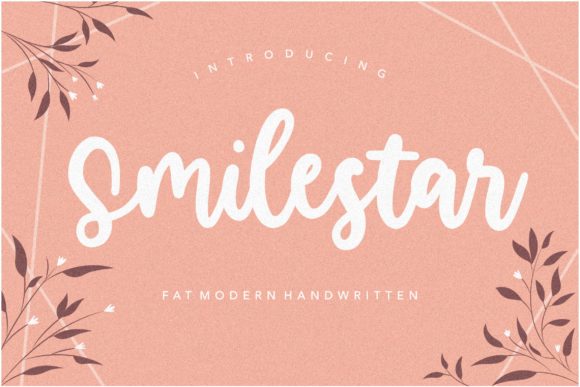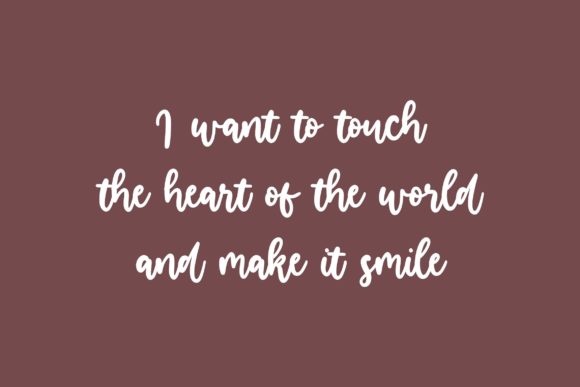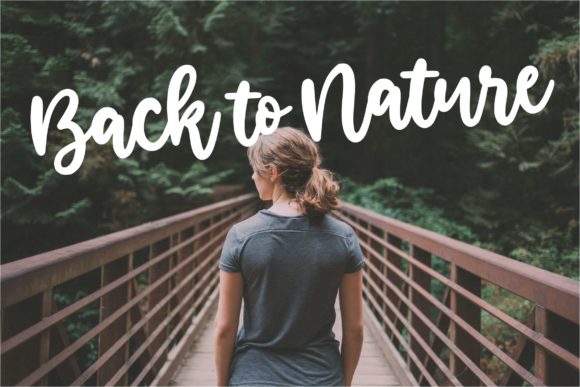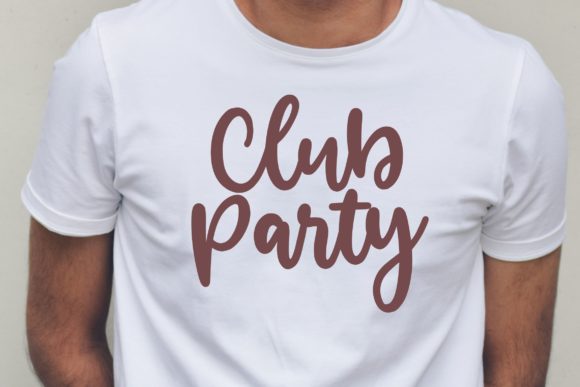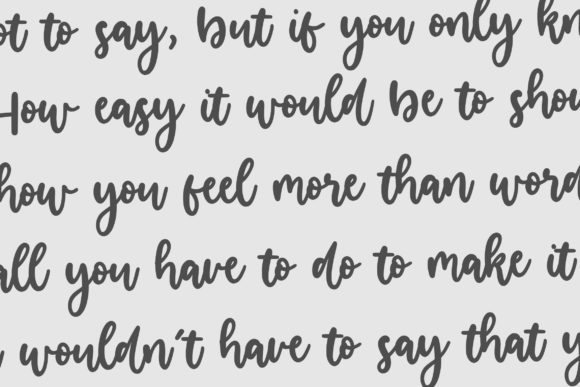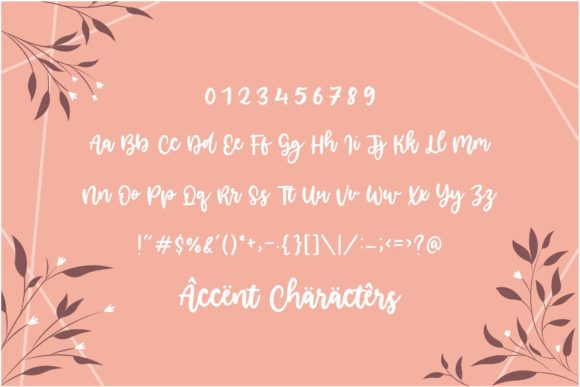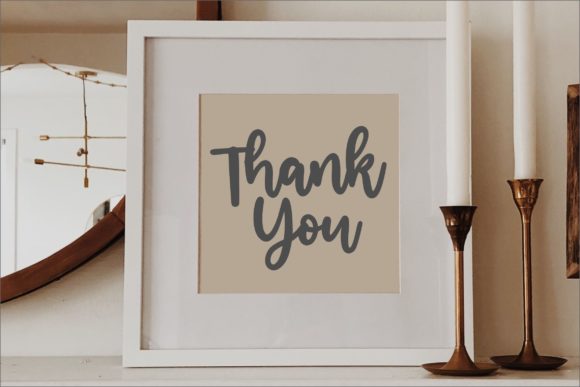
Smilestar Font
About Smilestar Font
Smilestar simplifies elegance into one truly outstanding handwritten font. This font will look outstanding in any context, whether it’s being used on busy backgrounds or as a standalone headline!